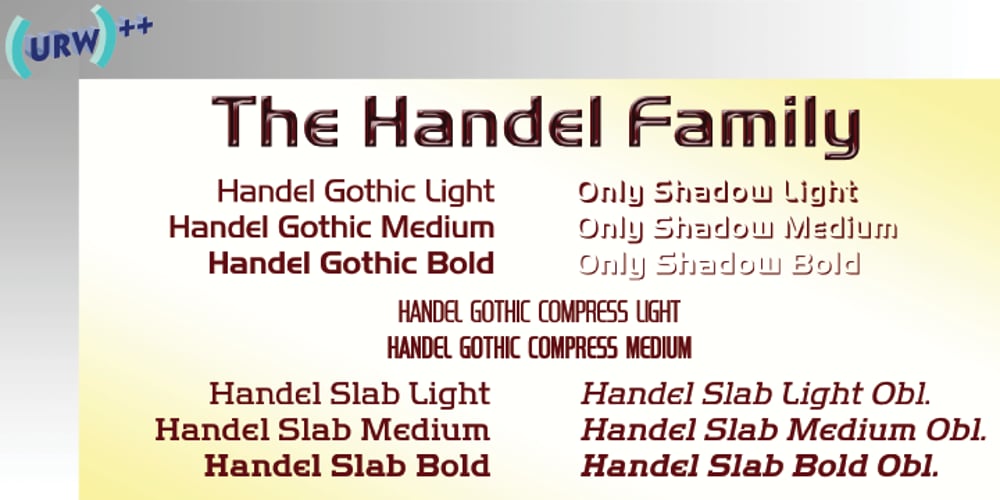
Handel Slab Font Family was designed by Ralph M. Unger and published by URW Type Foundry. Handel Slab contains 6 styles and family package options. Handel Slab, designed by Ralph M. Unger, is a new offering which ideally enhances and extends the existing Handel Gothic family. Even so, Handel Slab can very well be used on its own. Obviously, Handel Slab is closely based on Handel Gothic, which was designed by Don Mandel in the mid 1960s and which has been popular and successful amongst users from day one. Even today, it is a futuristic sans serif, and it is used for a wide range of typographic tasks, for example in computer games. Handel Slab provides a perfect enhancement to Handel Gothic, and the combination of both families offers more flexibility to designers and typographers.